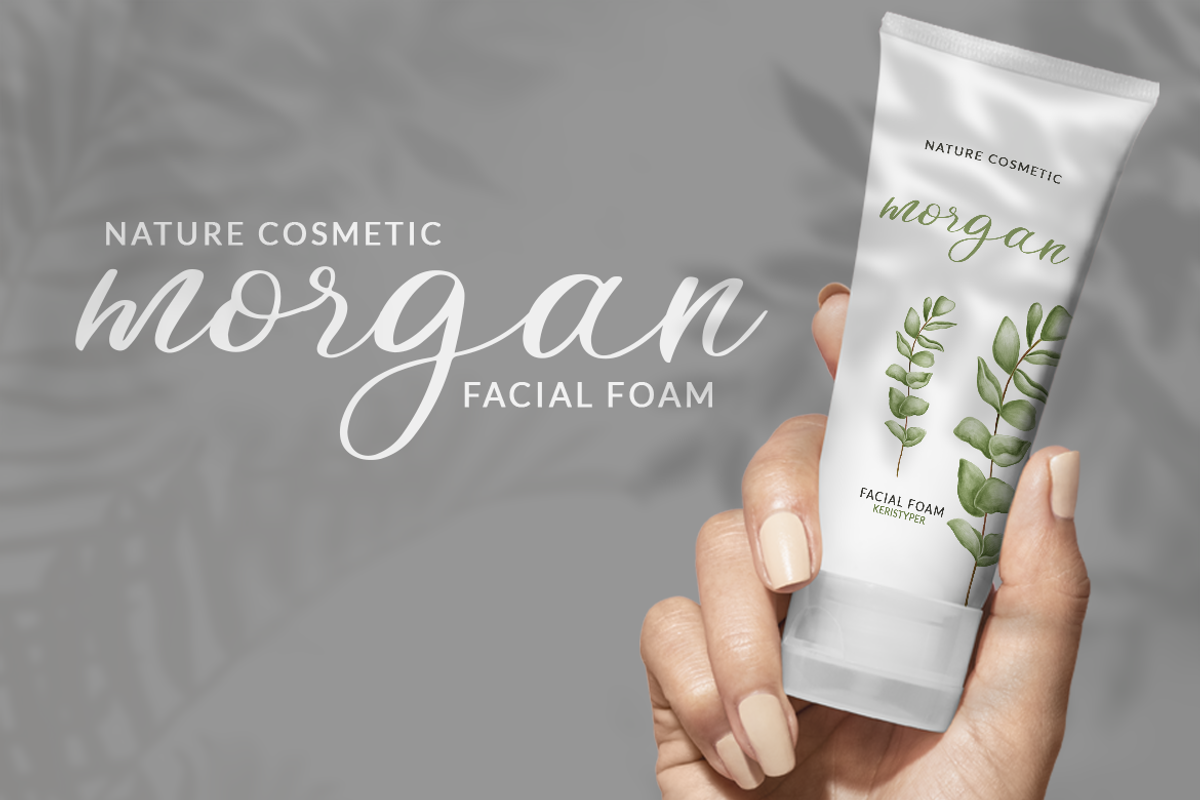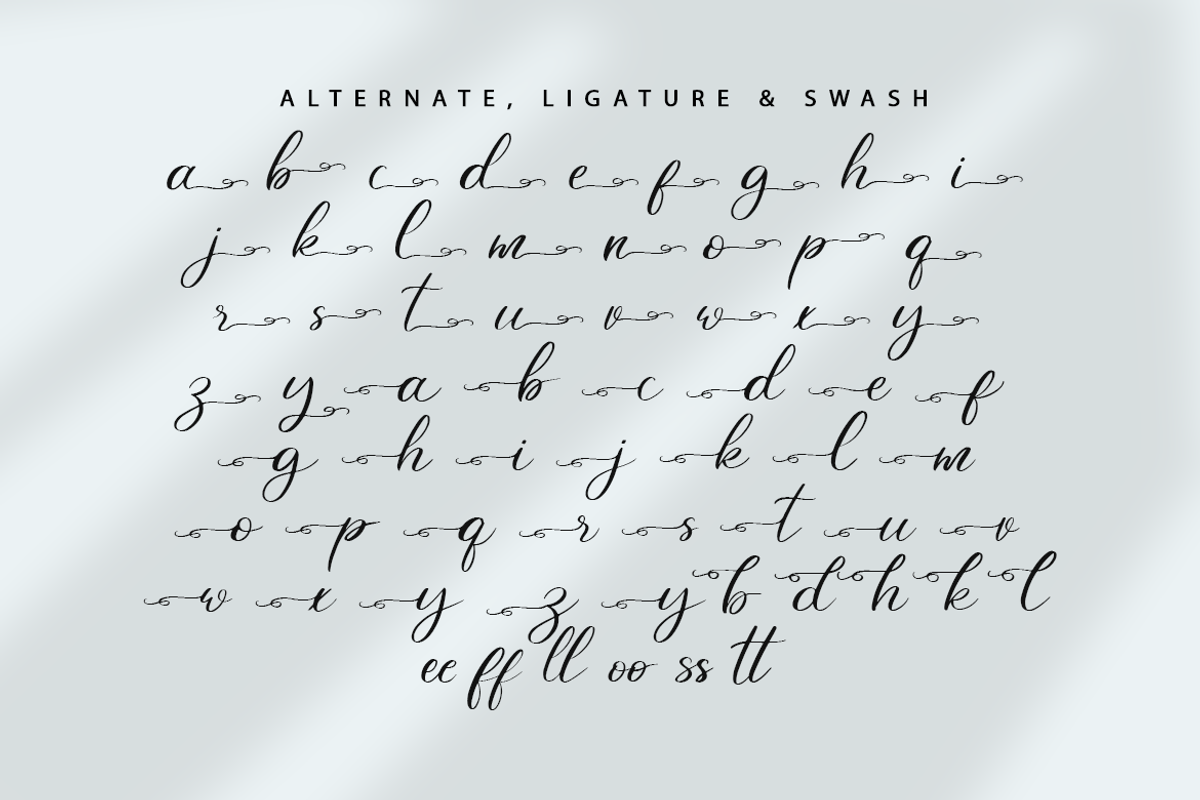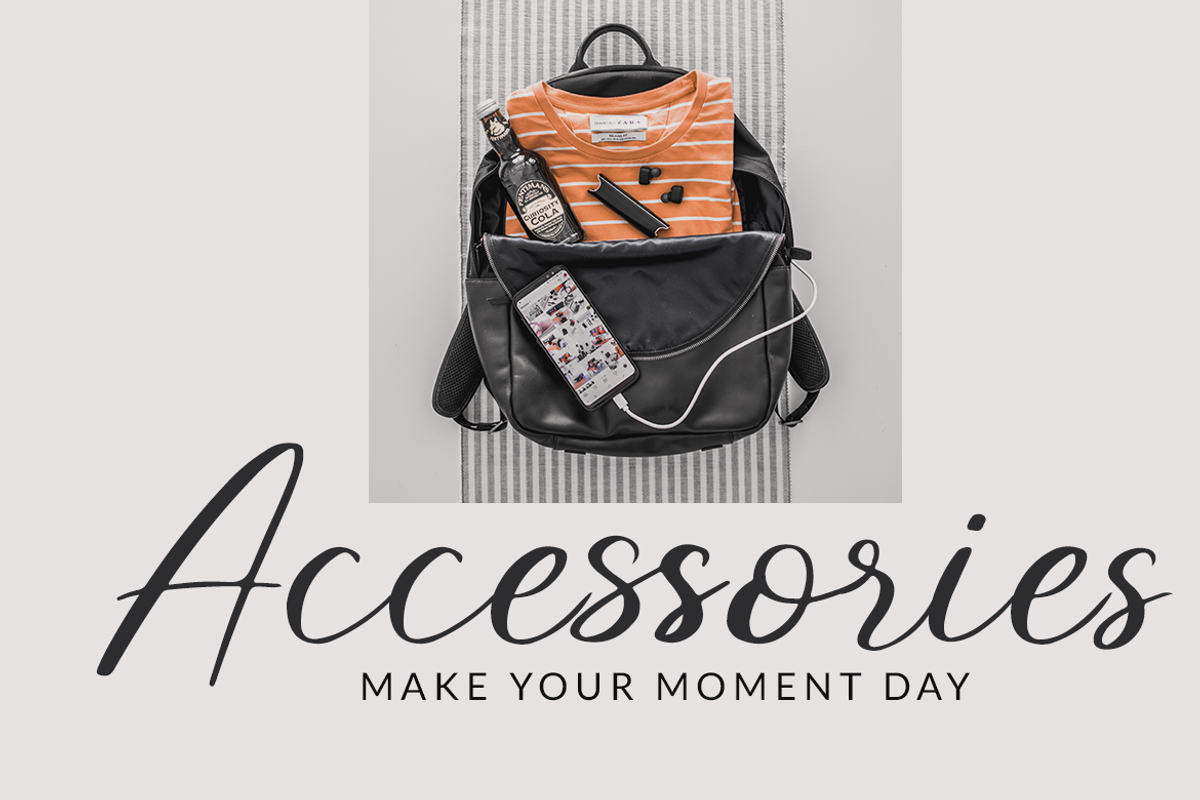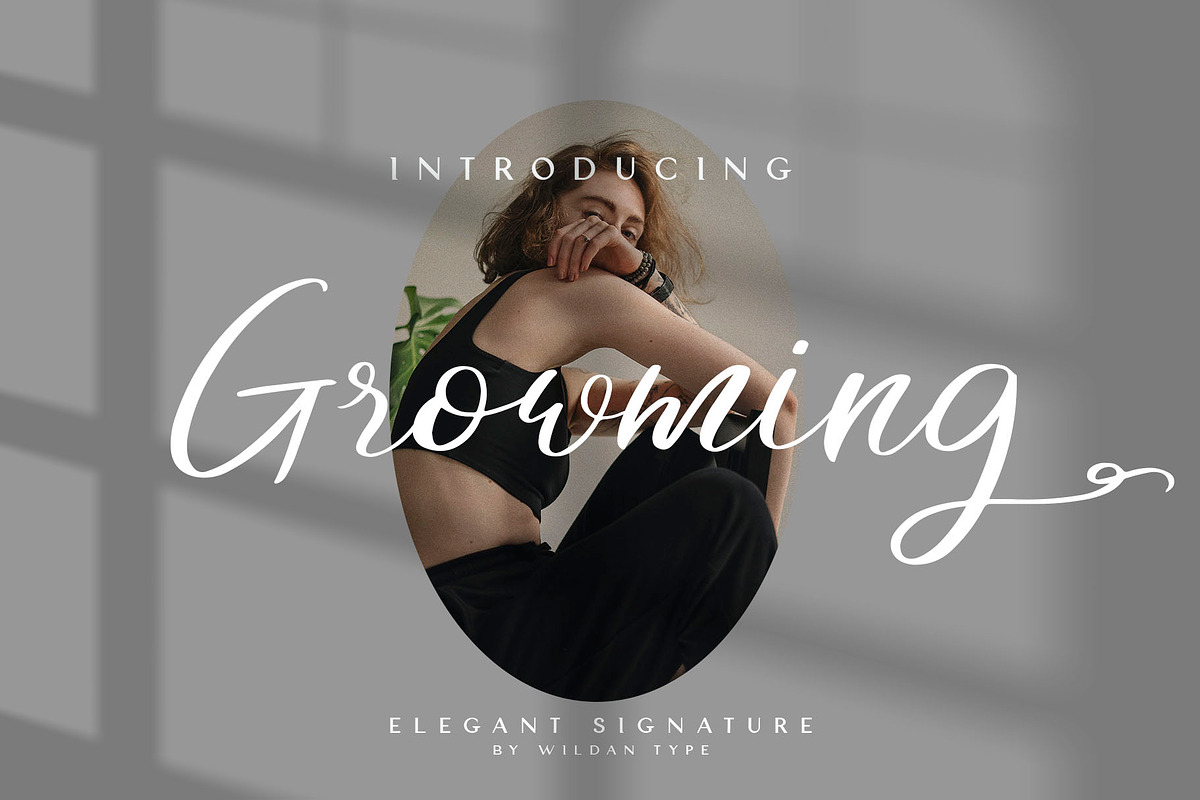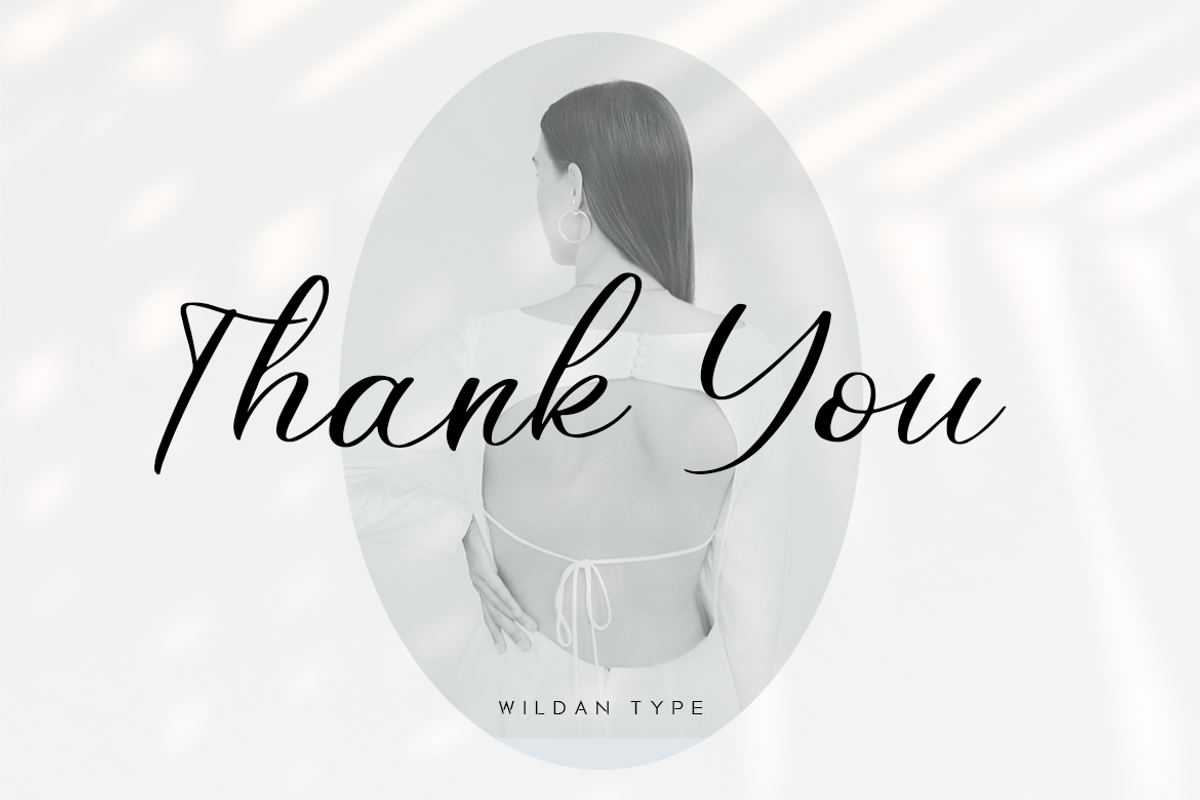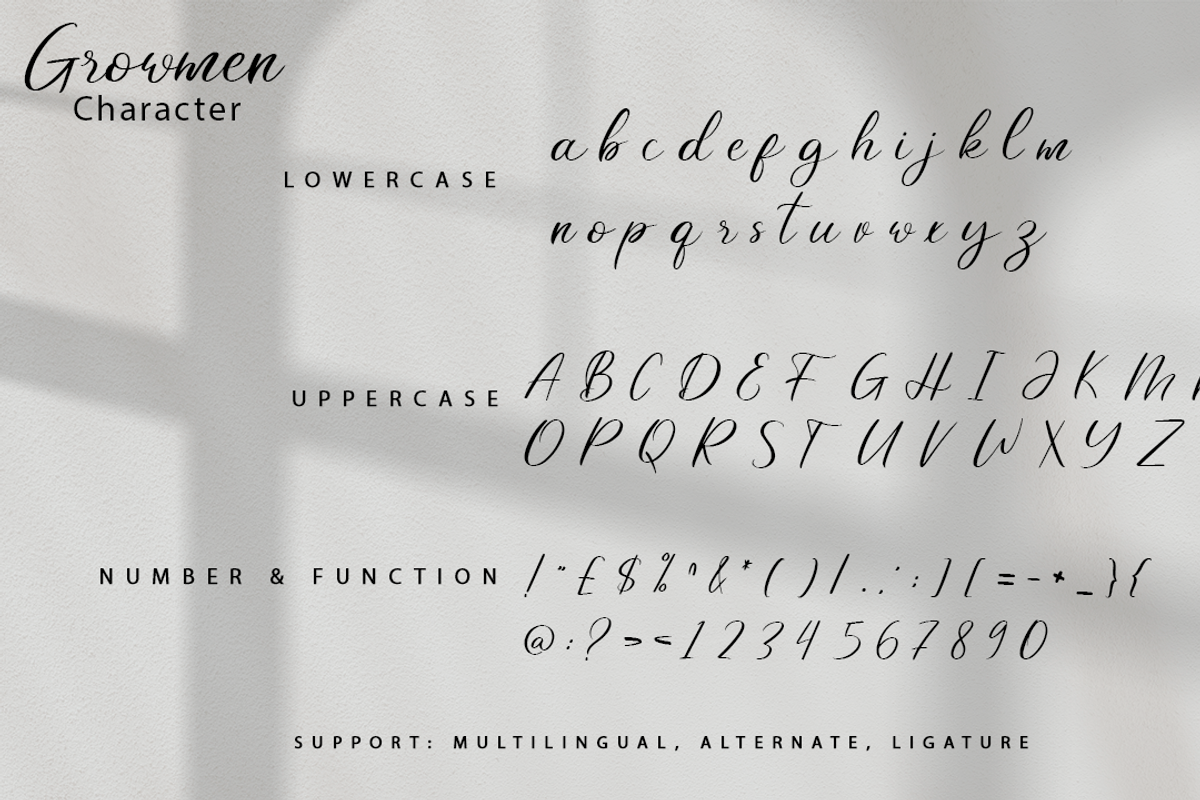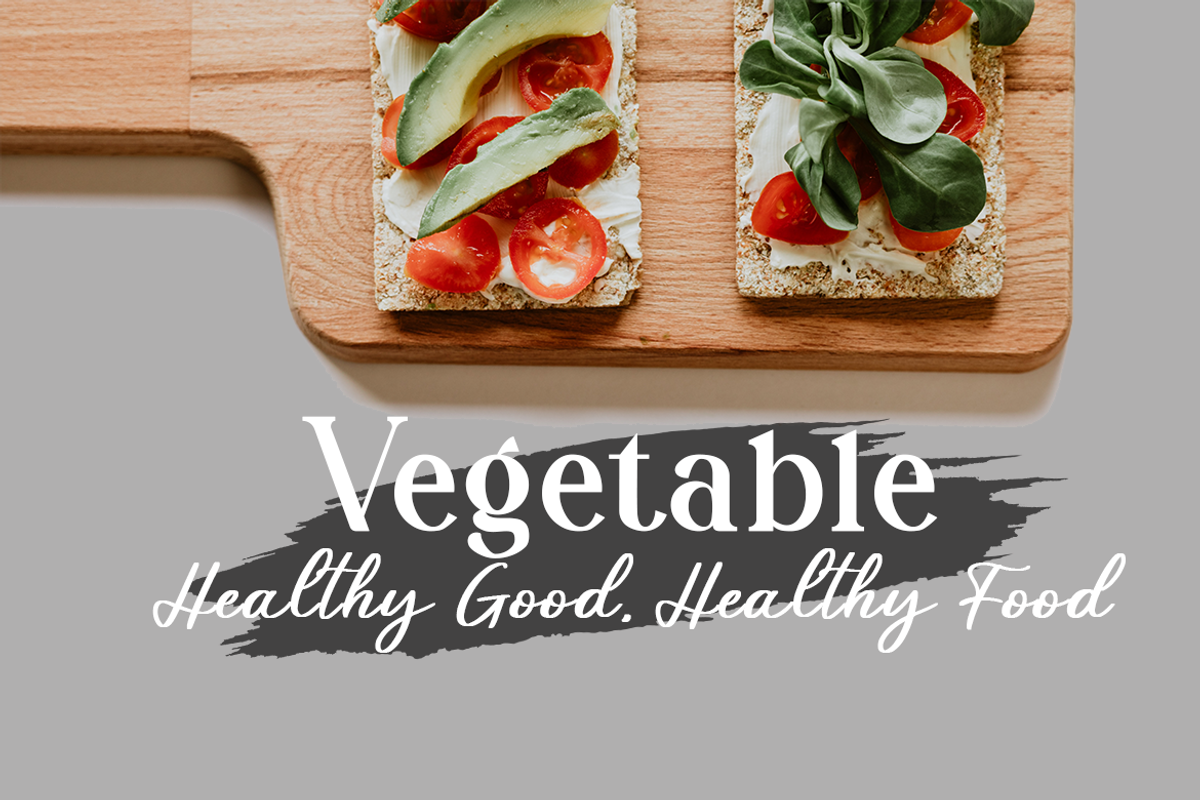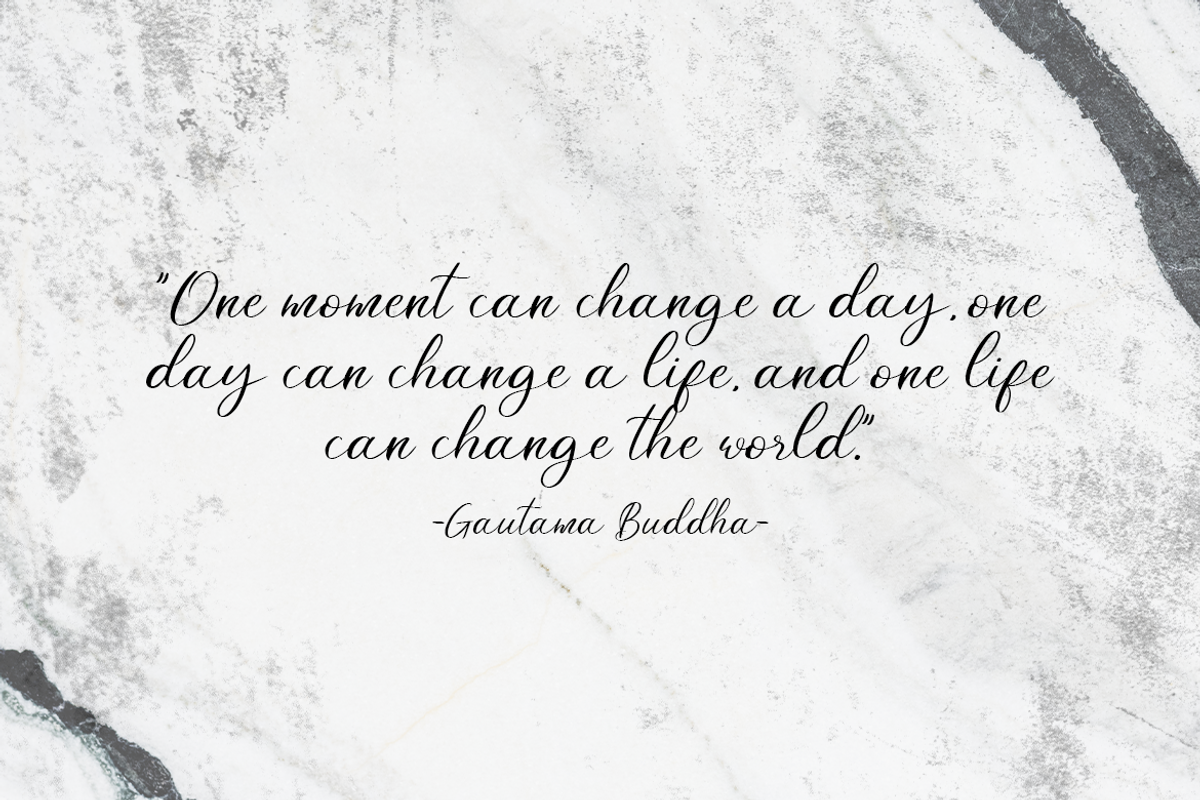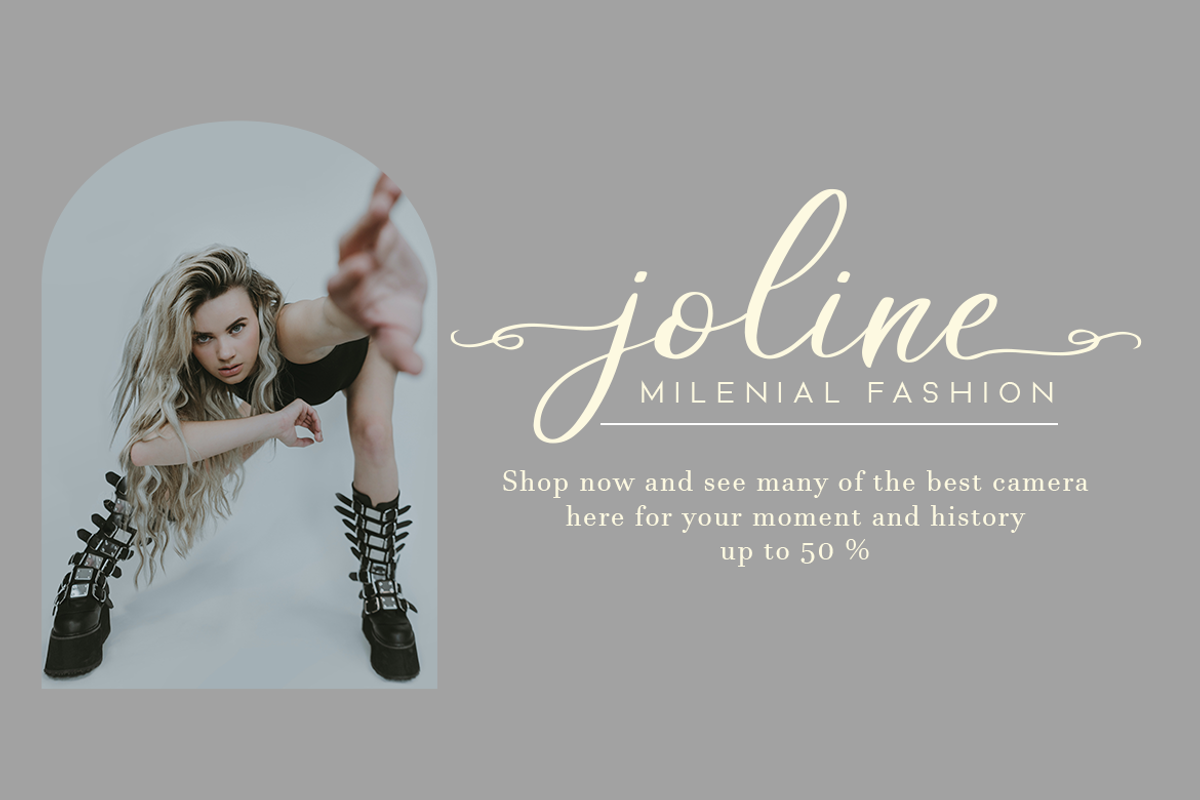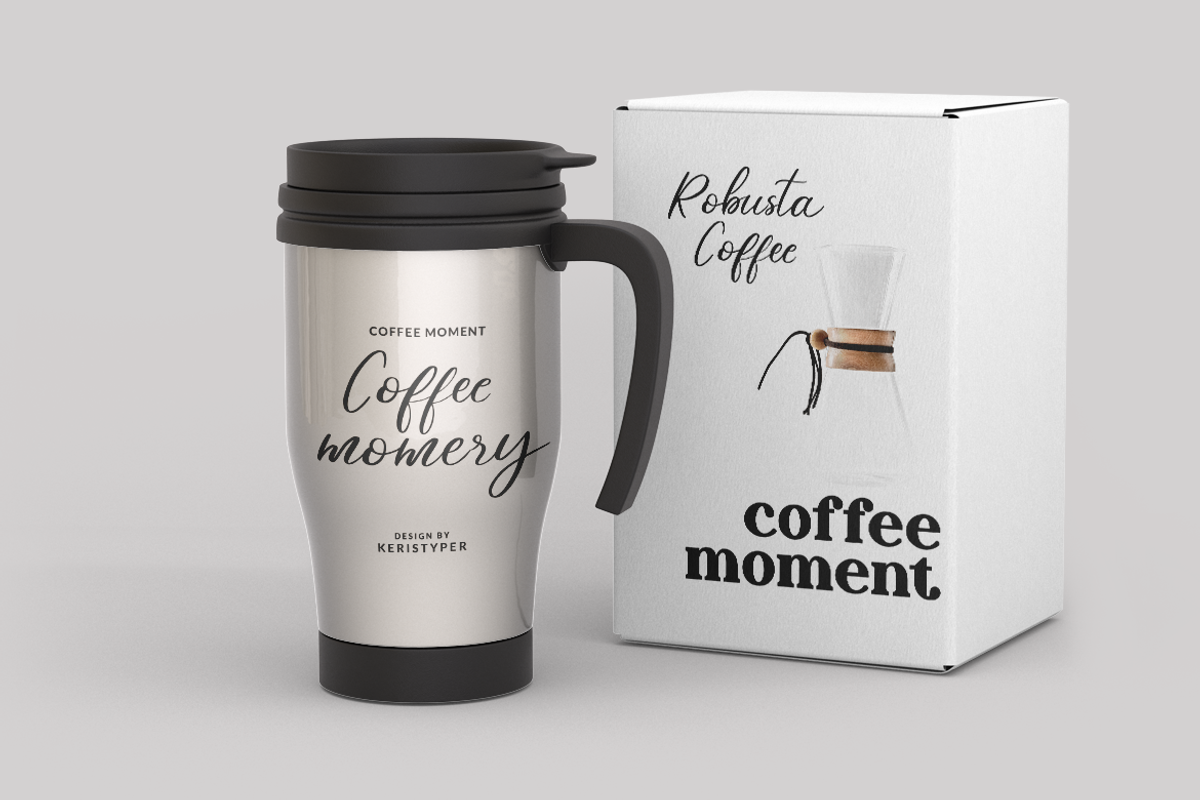
Growming
Growming is beautiful script font. The shape is modern and unique and the writing style is very natural. You can create many beautiful typographic designs in an instant like branding, web design and editorial, prints, crafts, quotes,
It's great for logotypes, wedding invitations, romantic cards, labels, packaging, spelling of names and others. Add to your most creative ideas and watch how they bring them to life!